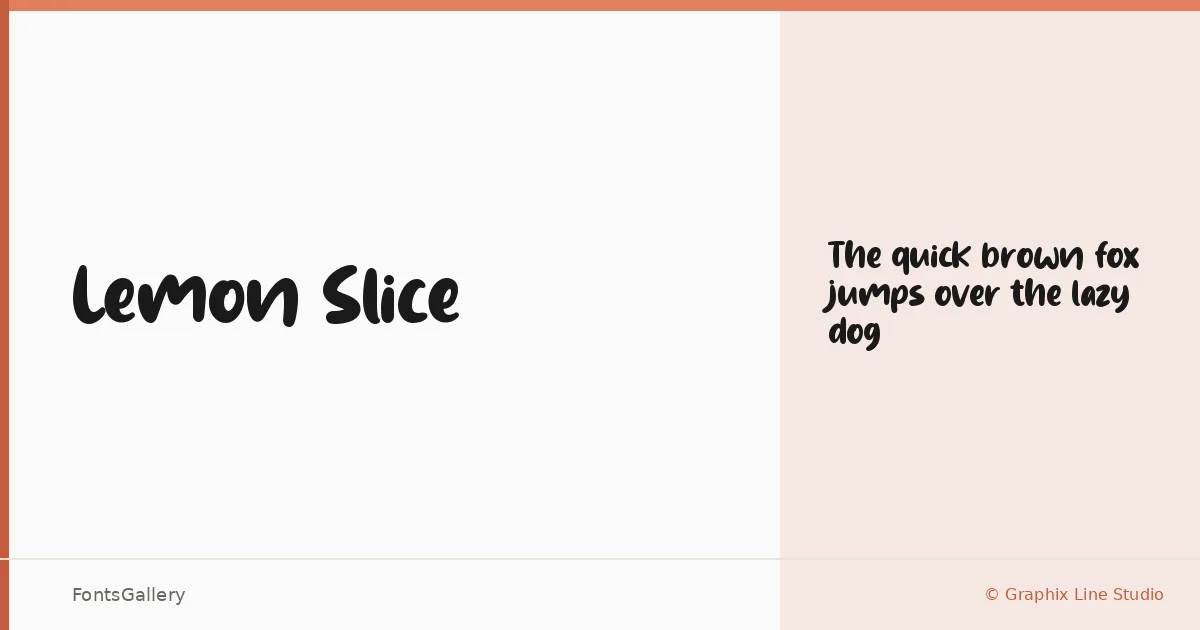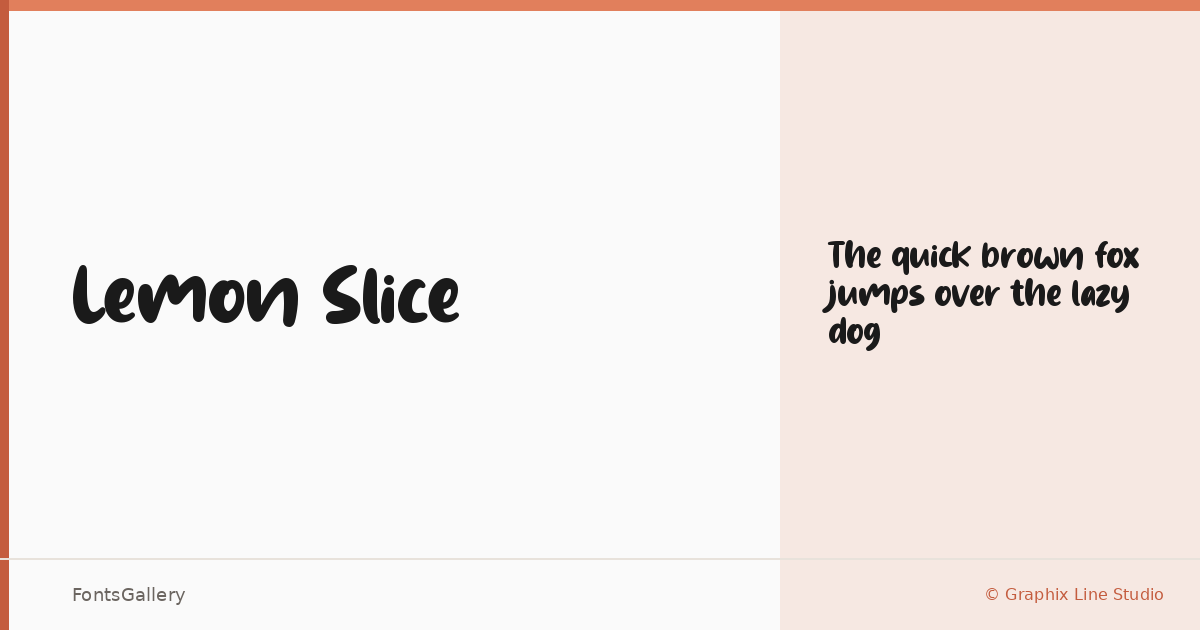
About Lemon Slice Font
There's a looseness to this script that feels genuinely hand-drawn — the kind of lettering you'd find brushed onto a market chalkboard or scrawled across a handmade gift tag with real intention behind it. Aldi Raya Pradipta of Graphix Line Studio drew it with a playful, rustic energy that keeps it from feeling too polished or mechanical. It comes as a single Regular weight, available in TTF and OTF formats.
This is a handwritten display face that sits squarely in whimsical territory — warm, informal, and a little rough around the edges in the best way. The letterforms carry that rustic character through uneven baselines and organic stroke variation, which give text set in it an alive, hand-crafted quality. It covers Latin script, though partially, so checking your character set before committing to a layout is worth doing. A single cut keeps things focused: you get one expressive voice, not a system.
The face earns its keep in branding work, packaging, greeting cards, children's book titling, and social media graphics where something handmade and warm outperforms anything too refined. It pairs well alongside cooler, more structured faces — Canela or ABC Arizona for an editorial contrast, Helvetica or Asap when you need a clean workhorse underneath, or Anglecia Pro when the job calls for something with its own personality but more restraint.